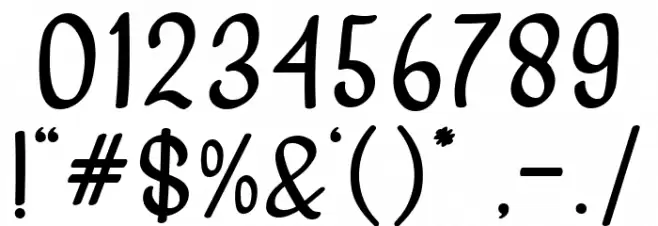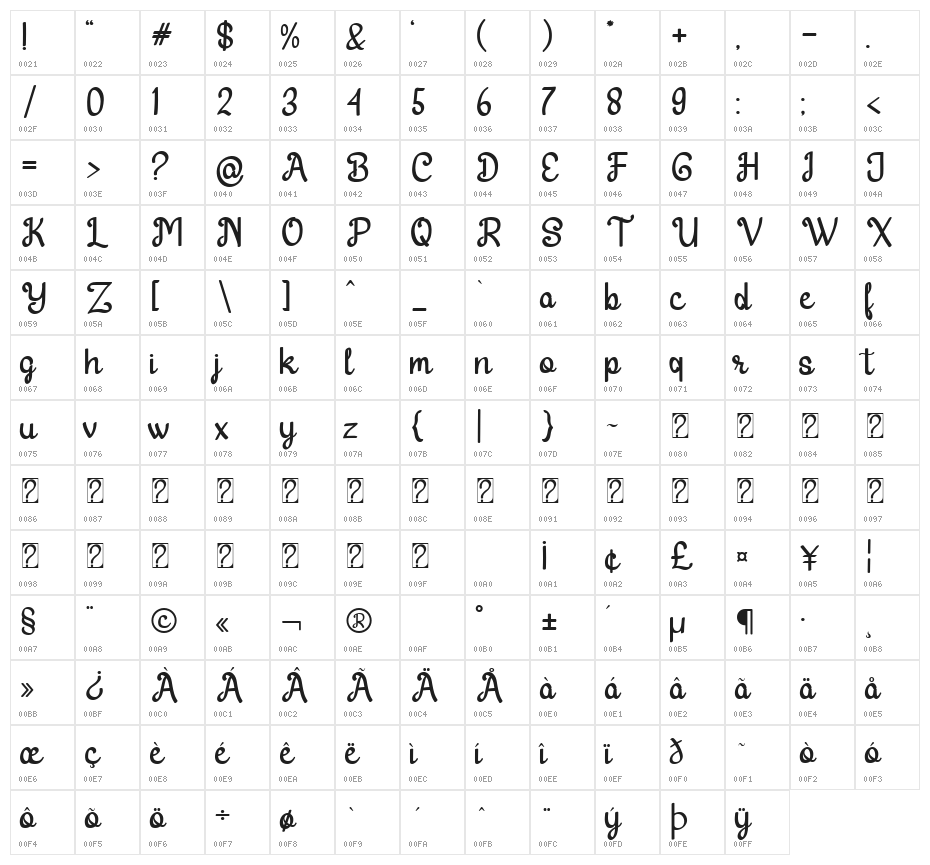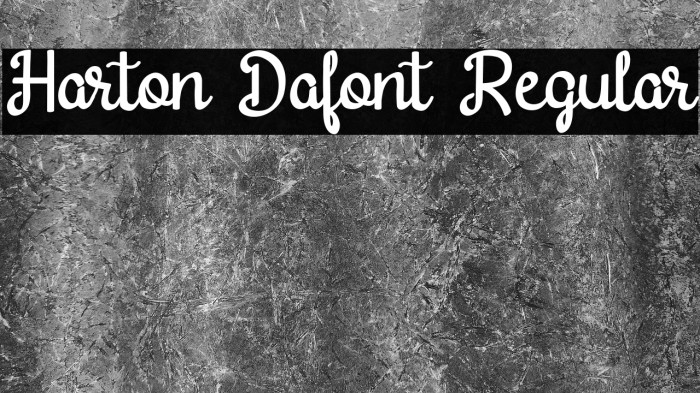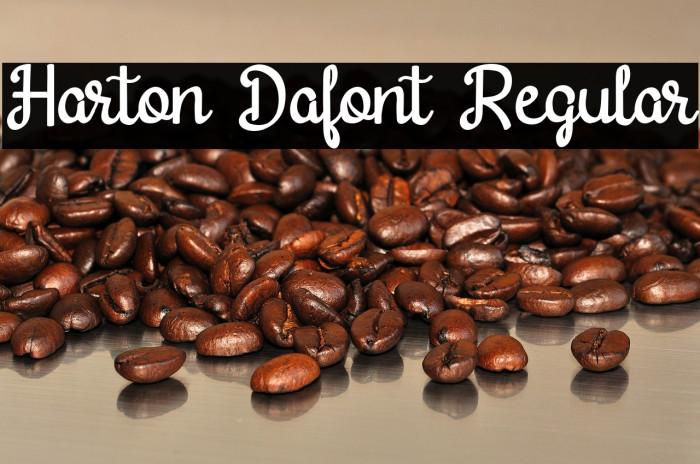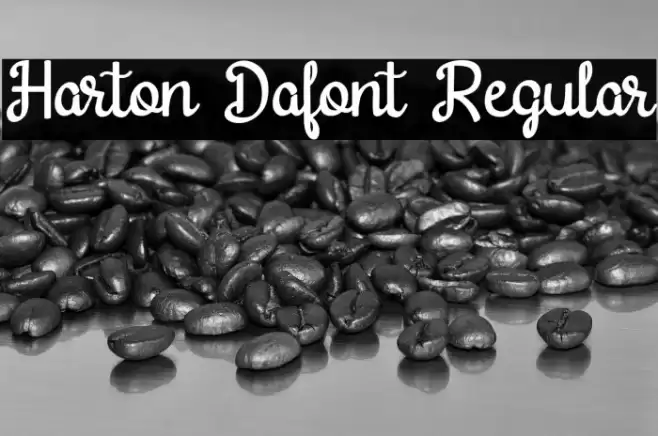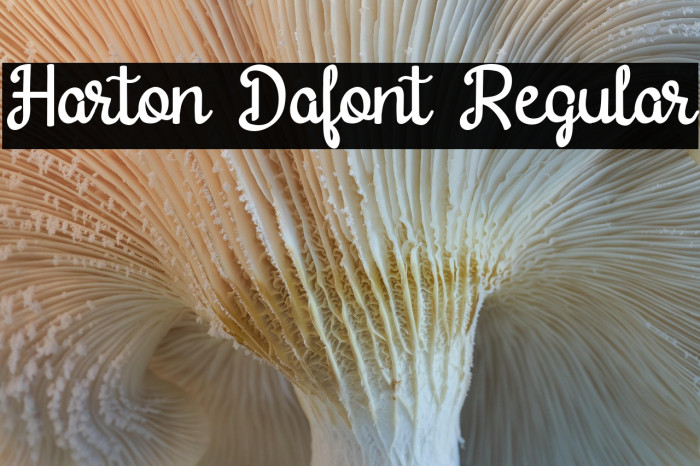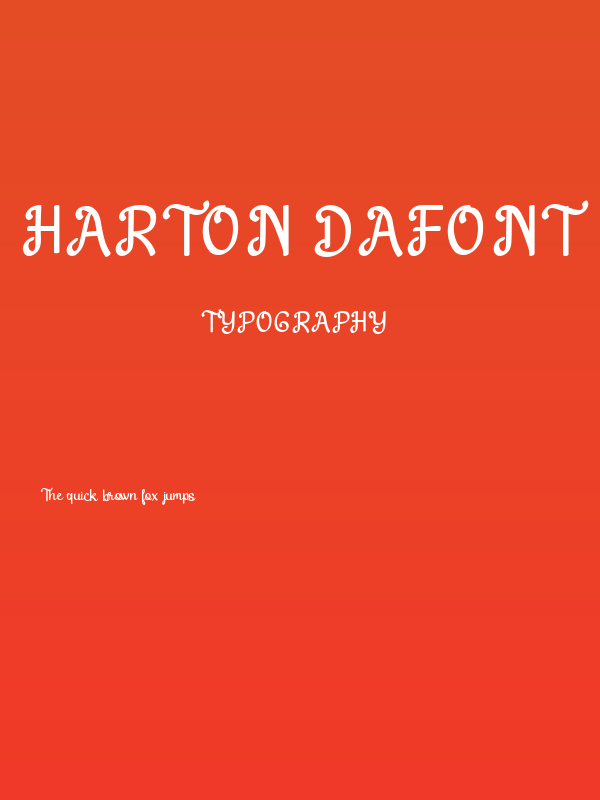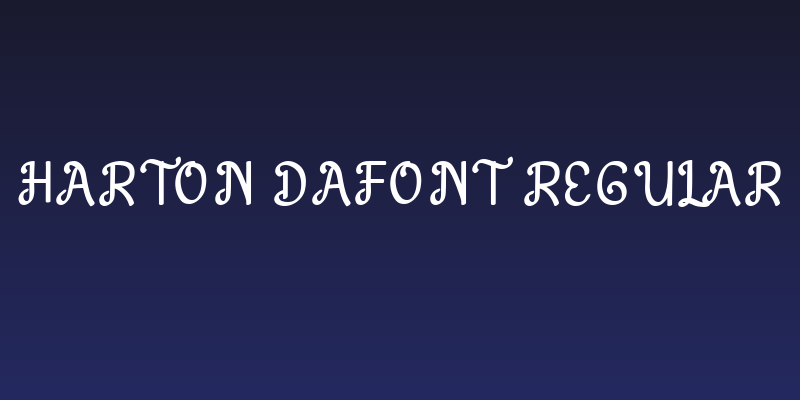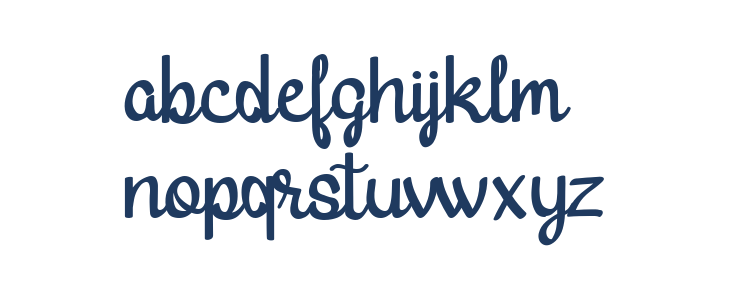
Harton Dafont Regular Font
Harton Dafont Regular Description
This font features a playful and whimsical script style, characterized by its smooth, flowing curves and rounded edges. The uppercase letters are bold and slightly condensed, giving them a strong presence, while the lowercase letters maintain a consistent flow with a touch of elegance. The numerals are clear and easy to read, matching the overall playful aesthetic. Special characters are integrated seamlessly, maintaining the font's cohesive look. This font is ideal for projects that require a friendly and approachable feel, such as children's books, invitations, or branding for creative businesses.
| Proposed Projects | Children's books, invitations, creative branding, greeting cards. |